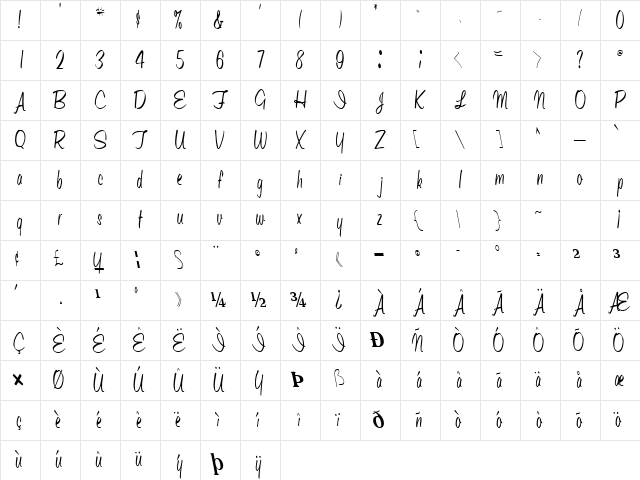
Well Regular
Complete Well Regular glyph index. Displaying only characters natively supported by Well Regular font.
Design Context for Well
Well is a composed and adaptable typeface that performs quietly and consistently across a wide range of design contexts.
Pro Tip: Use Well in both headline and body roles to test its range before committing to a single application.